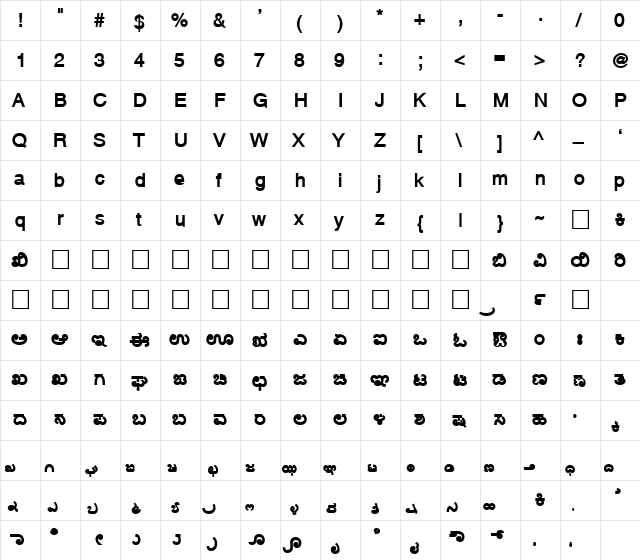
AkrutiOfficeRagini Normal
Design Context for AkrutiOfficeRagini Typeface
AkrutiOfficeRagini is a composed and adaptable typeface that performs quietly and consistently across a wide range of design contexts.